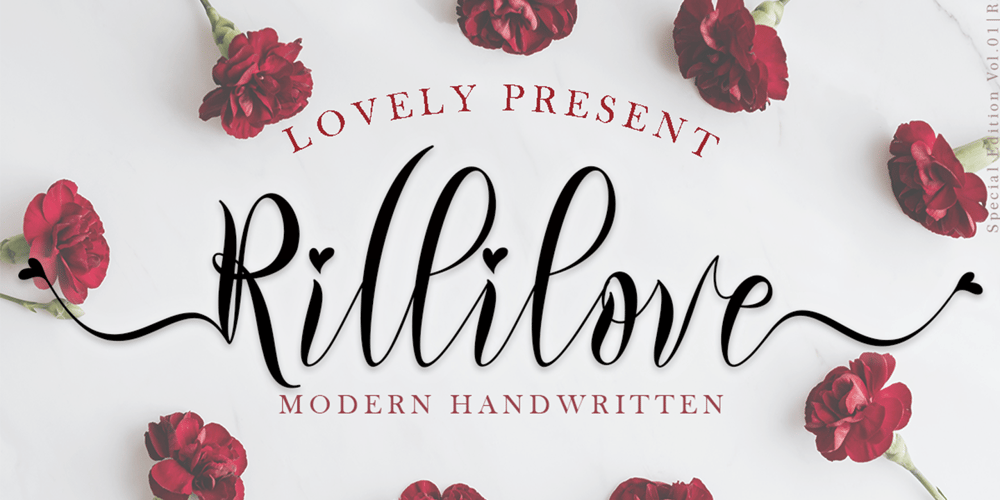
Rillilove Font Family was designed by Isroni Yoga Prasetya and published by Yoga Letter. Rillilove contains 1 styles and family package options. “Rillilove” is a very beautiful, smooth, elegant, and high-quality font. This font is perfect for weddings, marketing products, marketing your business, creating quotes, invitation cards, logos, branding, holiday updates, and more. Equipped with uppercase letters, lowercase letters, numerals, punctuation, swash, titling, uppercase alternates, ligatures, and multilingual support